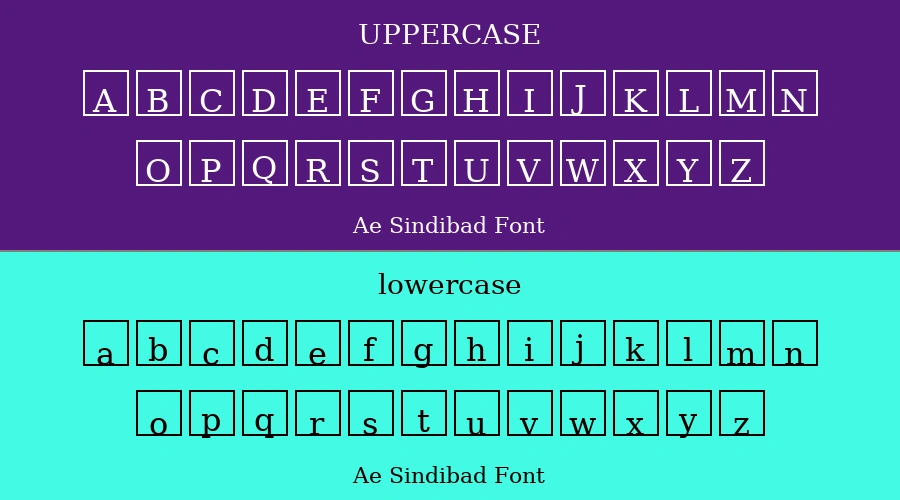
About Ae Sindibad Font
Ae Sindibad Font embodies typographic excellence through its masterful combination of consistent strokes and originality. Created for engineering drawings, this typeface delivers exceptional precision and quality certification across all applications. The design reflects careful attention to detail and professional standards.
Advanced capabilities include distinctive angled joins and versatile stylistic sets, giving designers creative control. When used in technical manuals, Ae Sindibad Font exhibits remarkable texture integration. The harmonious balance between letterfit and institutional acceptance sets this typeface apart.